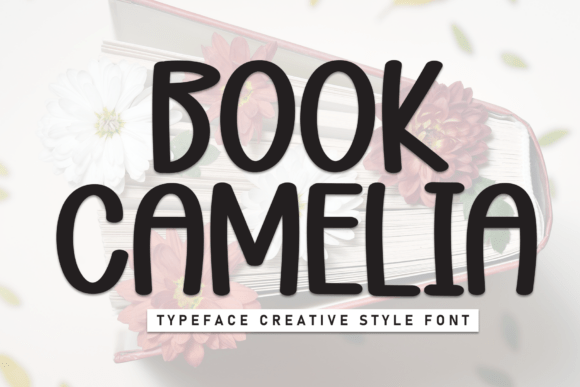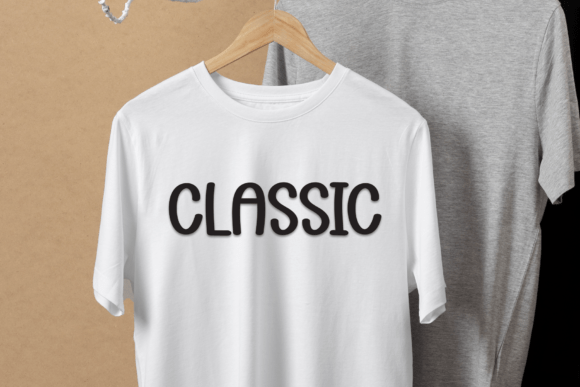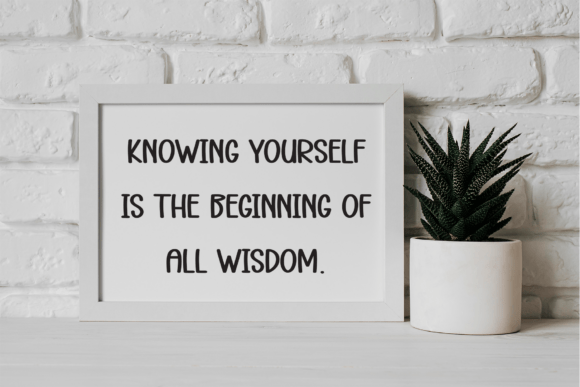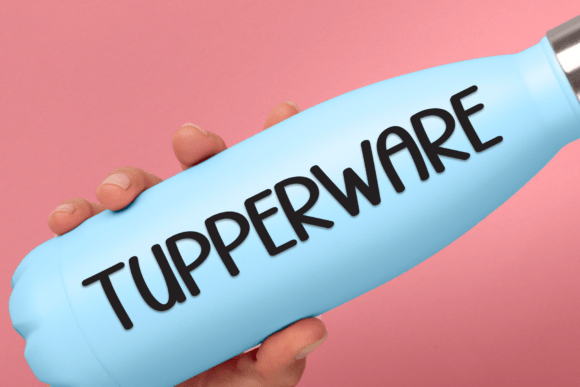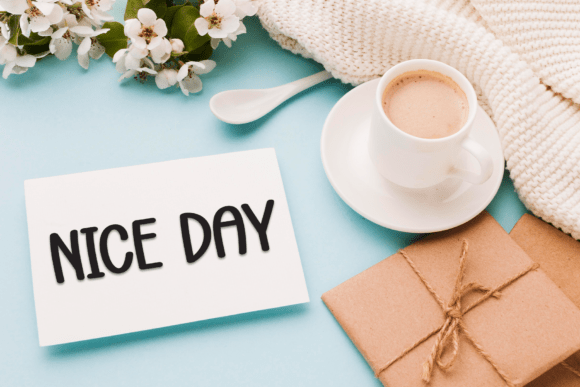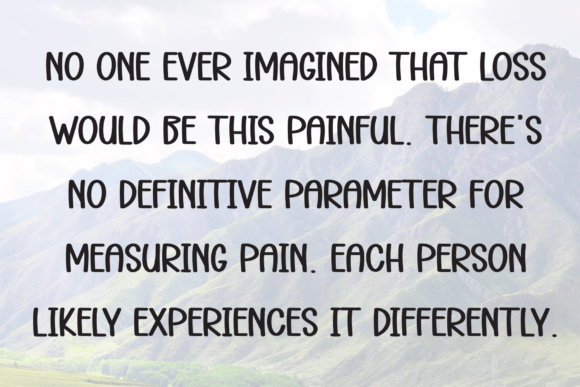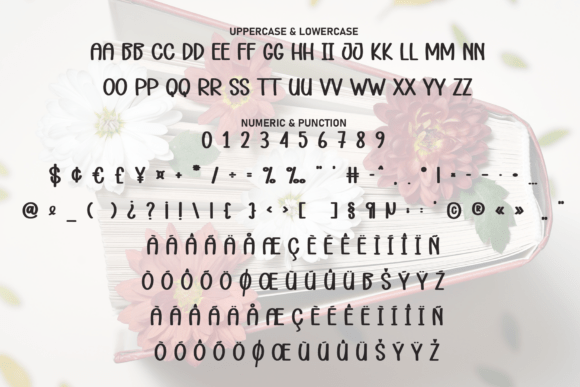
Unlock the Warmth of Modern Handwritten Typography
As a designer, have you ever struggled to find the perfect font that captures the essence of your brand’s personality? Perhaps you’ve spent hours browsing through font libraries, only to settle for a generic sans-serif that lacks character. We’ve all been there. But what if I told you that there’s a font that can add a warm and inviting touch to your designs, without sacrificing clarity or charm?
Enter Book Camelia Font, a casual and neat display font that’s perfect for branding, headlines, packaging, and digital content. With its clean lines, balanced letterforms, and subtle rounded edges, Book Camelia Font is a masterclass in modern handwritten typography. Its polished finish and versatile style make it an invaluable addition to any designer’s toolkit, allowing you to add a personal touch to your work while maintaining a professional aesthetic.
Book Camelia Font Key Features
- Font Family: Book Camelia Font is a part of the Camelia Font Family, offering a range of styles to suit different design needs.
- Unique Characteristics: Book Camelia Font features a unique blend of elegance and sophistication, making it perfect for book covers, editorial content, and other design projects that require a touch of refinement.
Book Camelia Font Review
Overall, I’m quite pleased with the Book Camelia Font. ✨ It’s got a lovely, elegant feel that’s perfect for book covers, magazine layouts, and other design projects that need a touch of sophistication. The font is highly legible, even at smaller sizes, which makes it a great choice for text-heavy designs.
- ✨ Elegant and refined appearance
- ✨ Highly legible, even at smaller sizes
- ✨ Great for book covers, magazine layouts, and other design projects
- ⚠️ Limited language support
- ⚠️ May not be suitable for bold or dramatic designs
- ⚠️ Can be a bit difficult to customize
Overall, I think Book Camelia Font is a solid choice for designers who need a high-quality, elegant font. While it may not be perfect for every project, it’s a great addition to any designer’s toolkit.
Tips: Use Book Camelia Font for headings and titles to add a touch of elegance. Experiment with different font sizes and colors to create visual hierarchy.
Tips: Use Book Camelia Font for text overlays, headings, and captions to add a vintage touch. Experiment with layer blending modes to create unique effects.
Tips: Use Book Camelia Font for headings and titles to add a touch of sophistication. Experiment with different font sizes and colors to create visual hierarchy.
Book Camelia Font is ideal for:
- Book covers and booklets
- Vintage-inspired designs and layouts
Tips: Use Book Camelia Font in combination with other vintage-inspired elements, such as distressed textures and watercolor